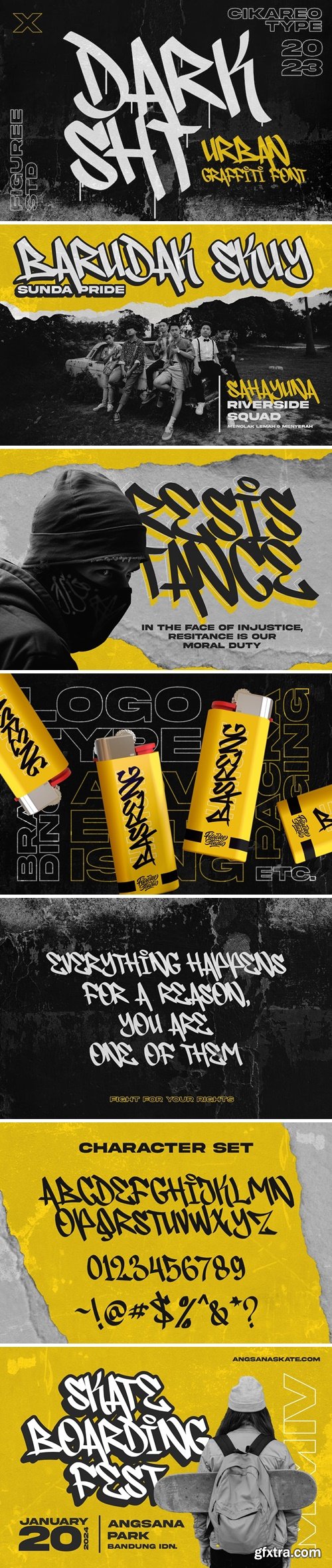
Darkshot - 城市涂鸦字体
Darksht is a bold and rebellious urban graffiti font that exudes an edgy and streetwise vibe. Its gritty, expressive lettering captures the raw and underground spirit of graffiti art, making it the ideal choice for projects that demand a touch of urban defiance. Whether it's for posters, street art, or designs that require a gritty and unapologetic aesthetic, Darksht injects a dose of urban energy into your typography, leaving a powerful impression on the streets and screens alike.